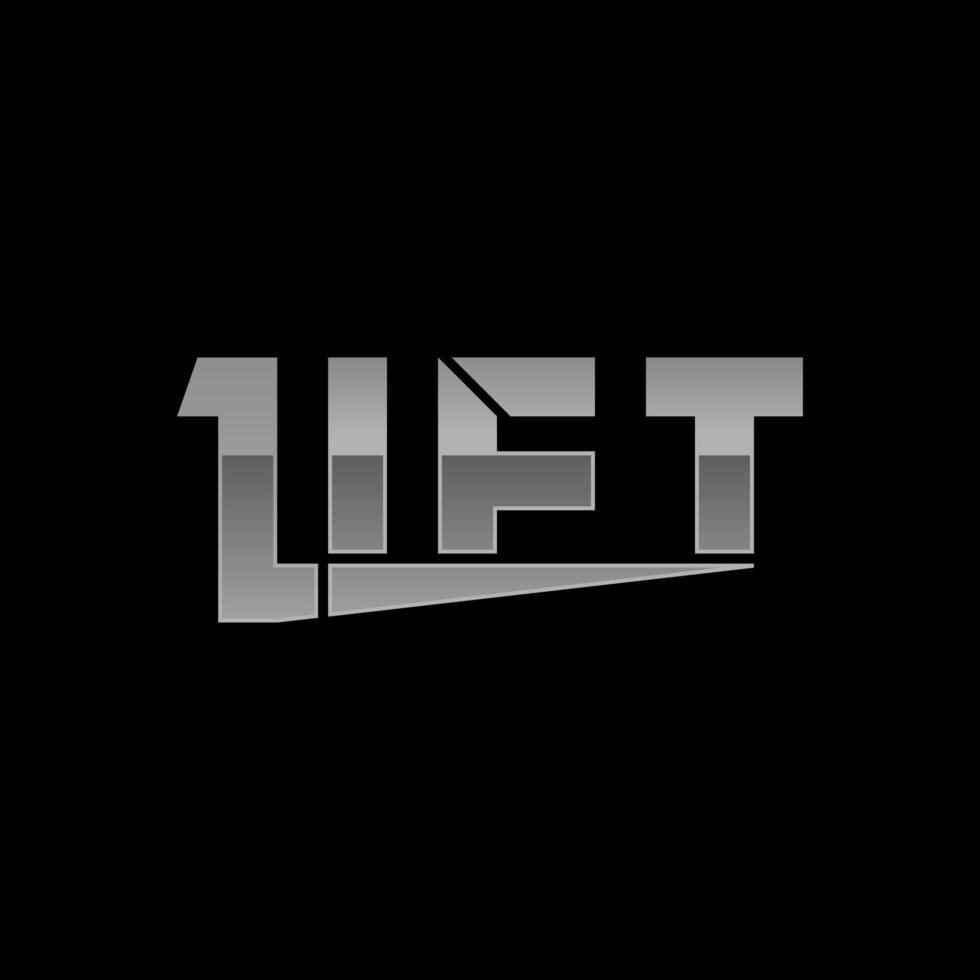
Simple letter or word LIFT font with fork image graphic icon logo design abstract concept vector stock. Can be used as a symbol related to to forklift or transportation Pro Vector